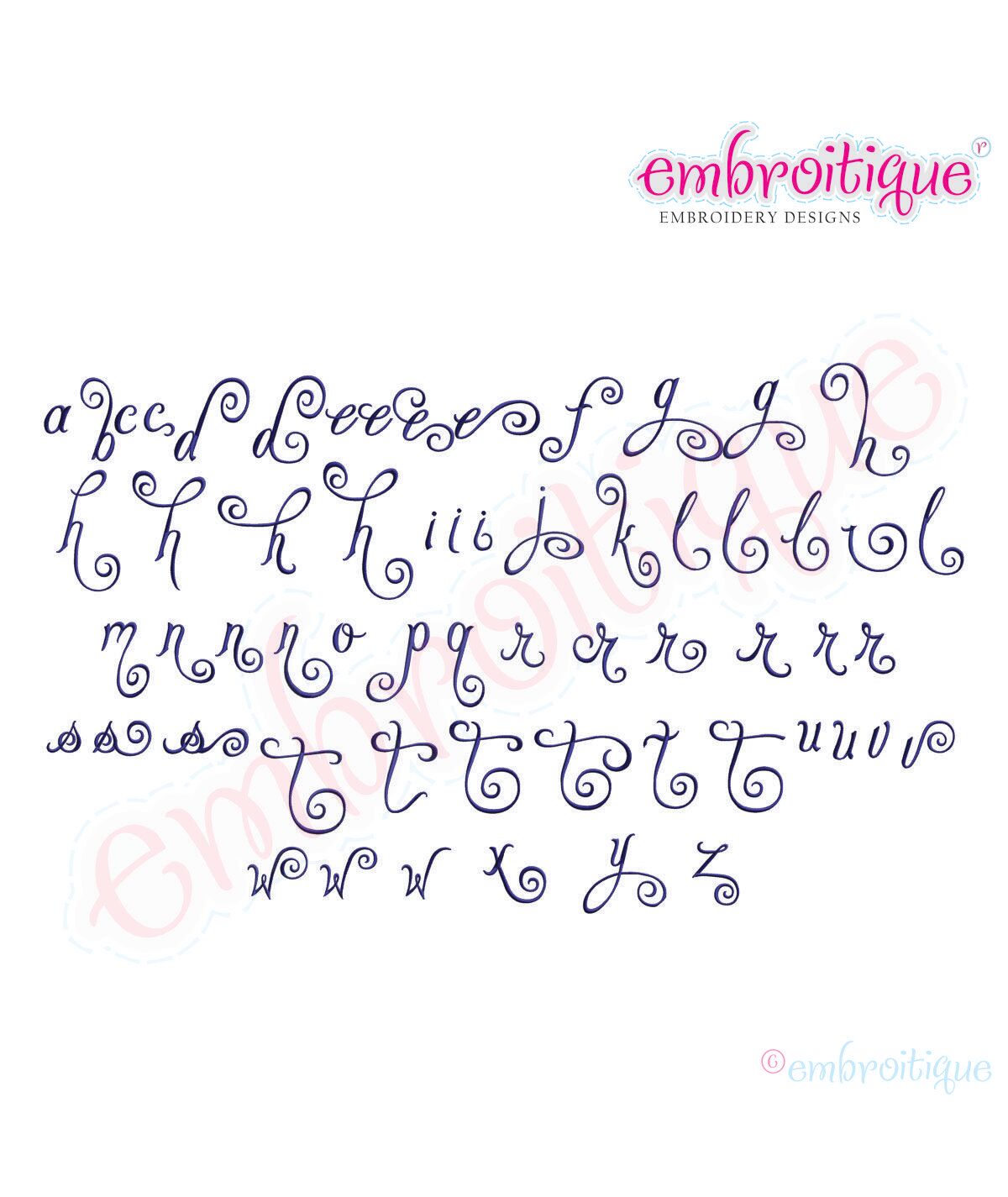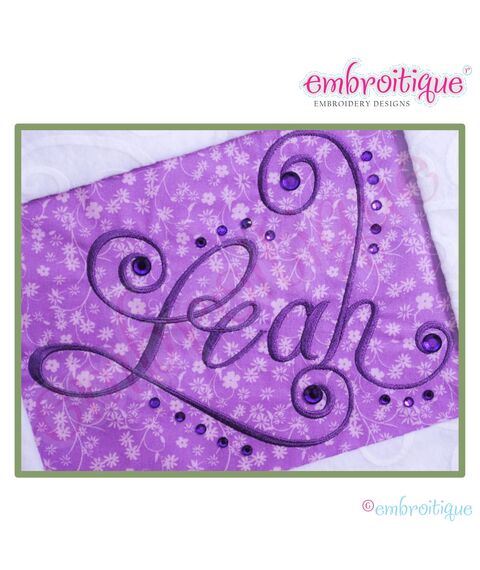
Charming Calligraphy Script Monogram Set - Medium - FULL SET - 3", 3.5", 4"
This beautiful calligraphy monogram set is an Embroitique exclusive set! Check out all of our Calligraphy Script Designs!